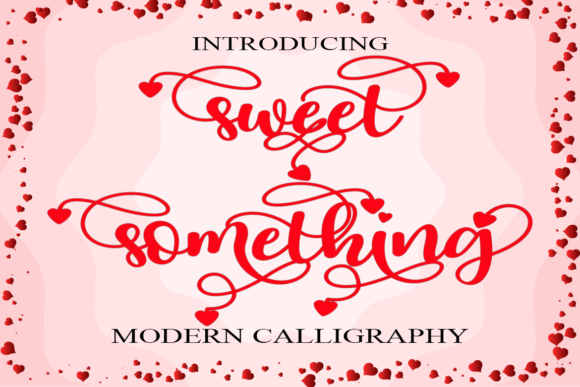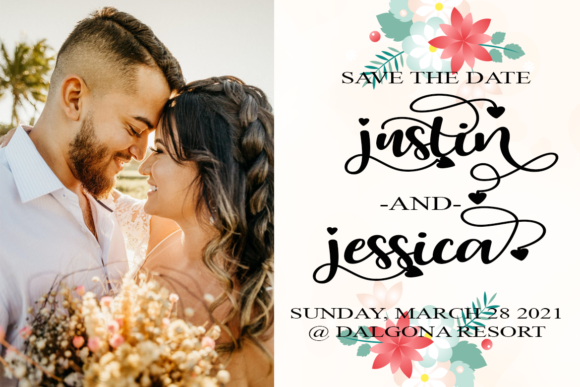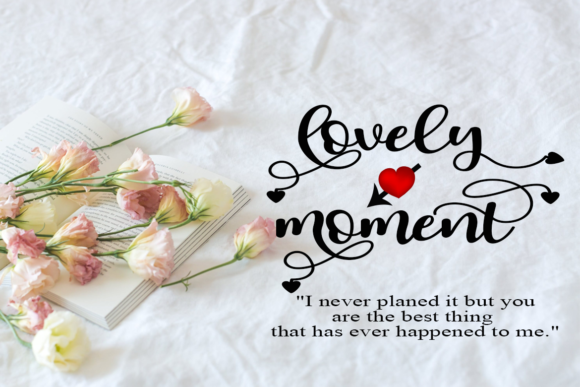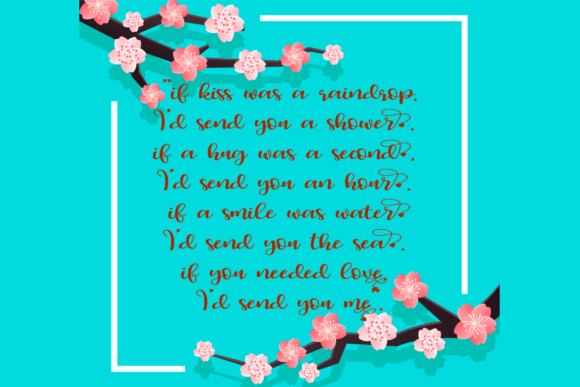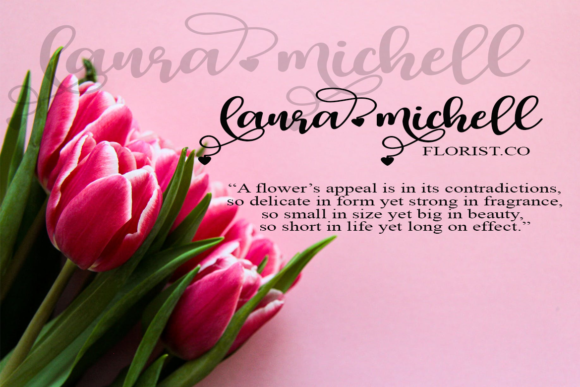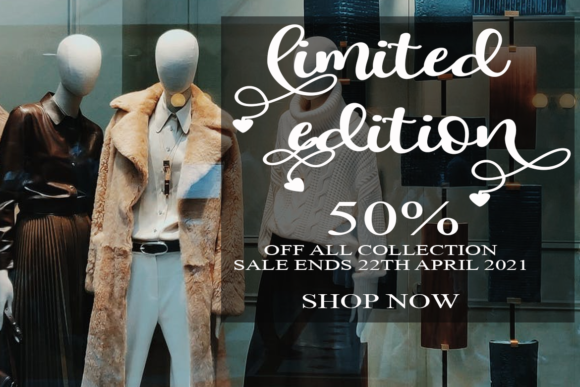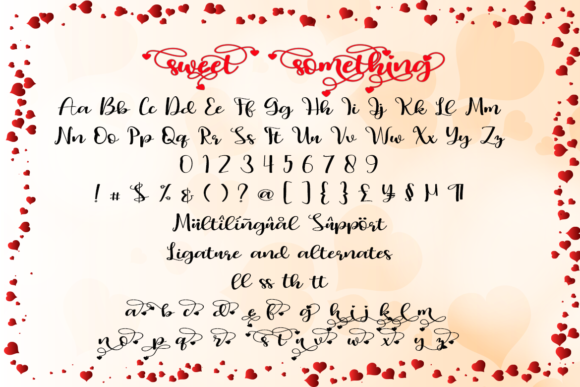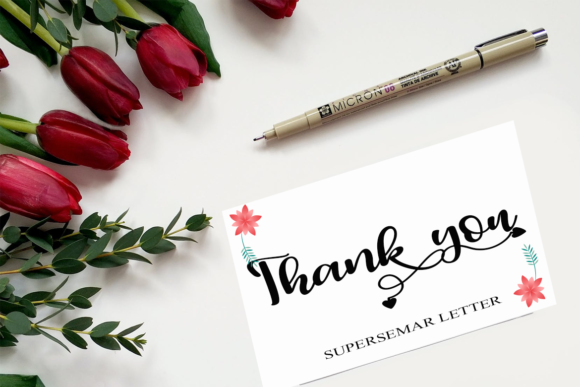
Sweet Something Font
About Sweet Something Font
Sweet Something is an exquisite handwritten font, masterfully designed to become a true favorite. It maintains its classy calligraphic influences while feeling contemporary and fresh. This font is PUA encoded which means you can access all of the glyphs and swashes with ease!